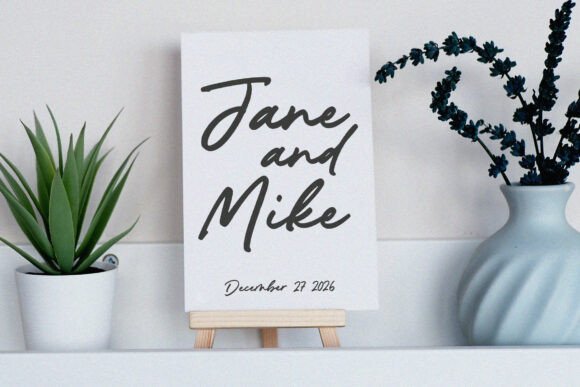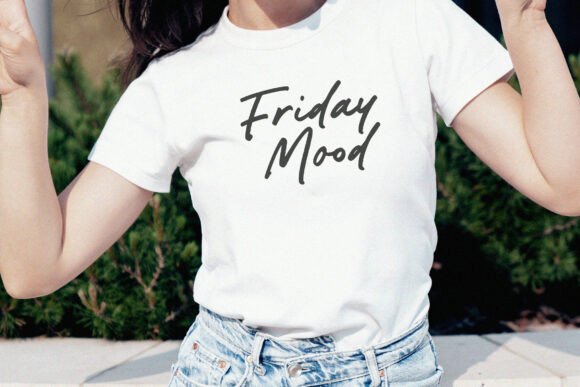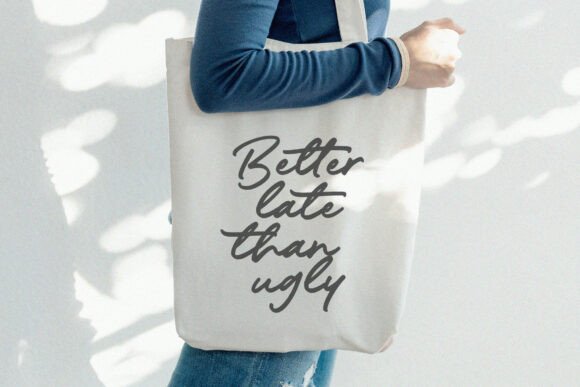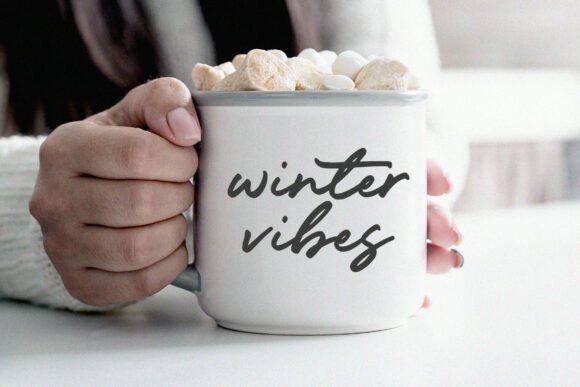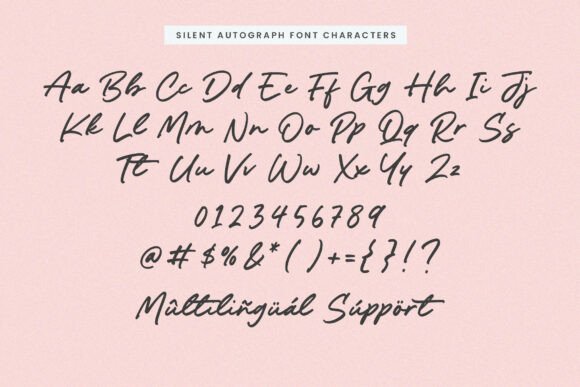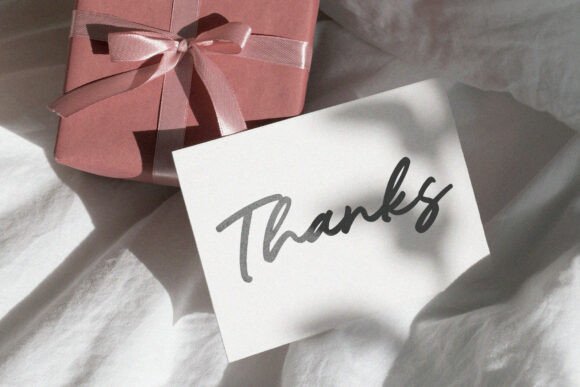
Introduction to Silent Autograph Font
As a designer, have you ever been stuck in a creative rut, struggling to find the perfect font to elevate your project? I know I have. That’s why I’m thrilled to introduce you to the Silent Autograph Font, a game-changing design resource that’s about to revolutionize your creative workflow.
Developed by the talented team at Timurtype Studio, the Silent Autograph Font is a modern handwritten script font that exudes casual elegance and sophistication. Its smooth, flowing strokes and slightly irregular lines mimic the natural flow of handwriting, making it an authentic and approachable choice for branding, invitations, logos, and creative projects.
What sets the Silent Autograph Font apart is its high-quality design, which is perfect for designers seeking a refined touch in their work. With its clean letterforms and fluid cursive connections, this font is not only stylish but also highly legible. Plus, with its transparent background, you can easily integrate it into your designs without any hassle. And the best part? You can download it for free, making it an invaluable addition to your design arsenal.
Key Features of Silent Autograph Font
- High-quality, elegant design perfect for creative projects, including invitations, certificates, and more.
- Features a unique, handwritten style that adds a personal touch to any project.
- Perfect for use in various design contexts, including print, digital, and web-based projects.
Honest Review: Silent Autograph Font
I recently had the chance to work with the Silent Autograph Font, and I must say it’s a fantastic addition to any design resource library. The free download made it an attractive option, and I was excited to see how it would perform in my creative project.
What works well is the high-quality design and the transparent background, which allows for seamless integration with any background image. The font is clean, modern, and sophisticated, making it perfect for a variety of applications, from business cards to posters.
- ✨ Elegant and refined design
- ✨ High-quality vector graphics
However, I did encounter a few limitations. The font is only available in a single style, which might not be ideal for designers who prefer a more versatile font with multiple variations. Additionally, the font is not as extensive in its character set as some other fonts on the market.
- ⚠️ Limited font styles (only one available)
- ⚠️ Not as extensive in character set
Overall, I’m impressed with the Silent Autograph Font, and I would recommend it to designers looking for a high-quality, elegant font for their creative projects. While it may have some limitations, the benefits far outweigh the drawbacks.
Silent Autograph Font
Tips for Getting the Most Out of Silent Autograph Font
For best results, use the font with a transparent background to create a seamless design. Experiment with different font sizes and colors to add visual interest to your project.
The Silent Autograph Font is perfect for:
- Event branding and marketing materials
Alternatives to Silent Autograph Font
Aurum Script
Aurum Script is a luxurious and elegant script font suitable for high-end creative projects, such as invitations and wedding stationery. Its intricate details and subtle flair make it an excellent choice for designers seeking a sophisticated look. When to use: formal events, luxury brands, and high-end marketing materials. It compares to Silent Autograph Font in terms of elegance and sophistication, but Aurum Script has a more luxurious feel and is better suited for formal events.
Litera
Litera is a high-quality script font with a modern and stylish feel, perfect for designers working on creative projects that require a touch of sophistication. Its versatility makes it suitable for various applications, from advertising to editorial design. When to use: modern branding, advertising campaigns, and editorial content. It compares to Silent Autograph Font in terms of its elegant and refined look, but Litera has a more modern feel and is better suited for contemporary designs.